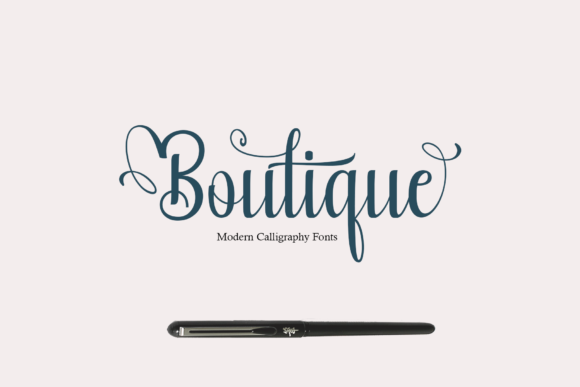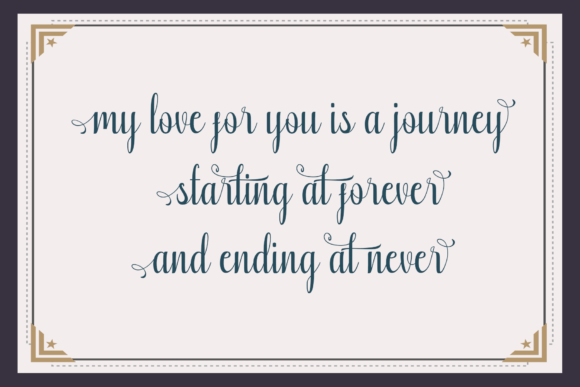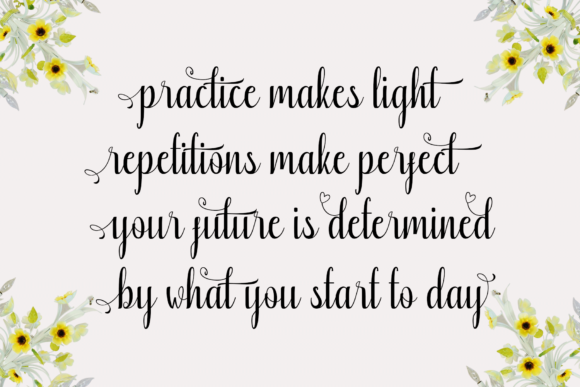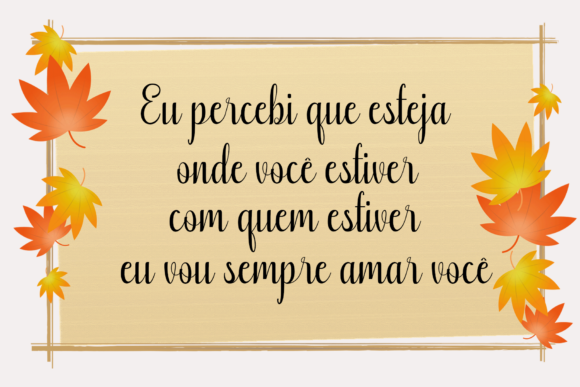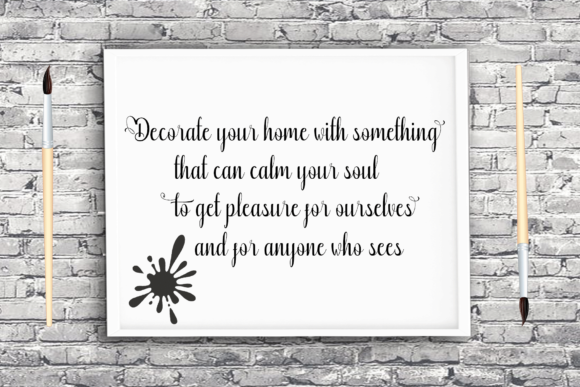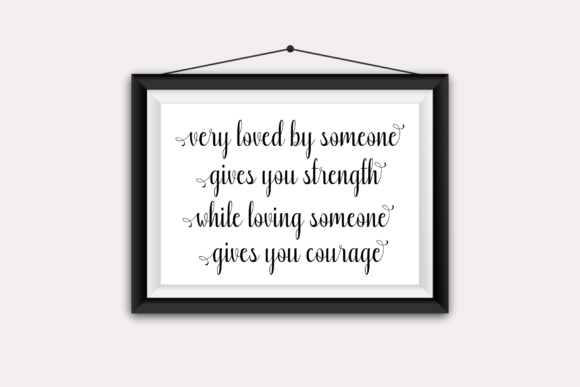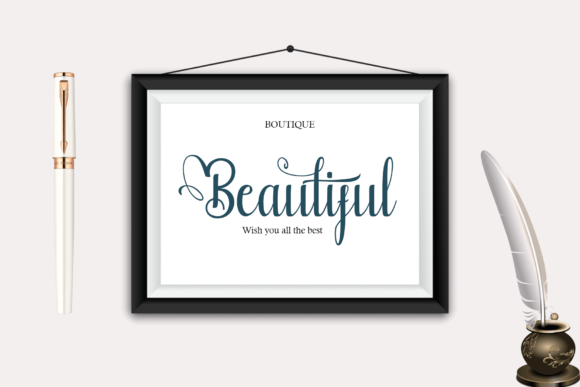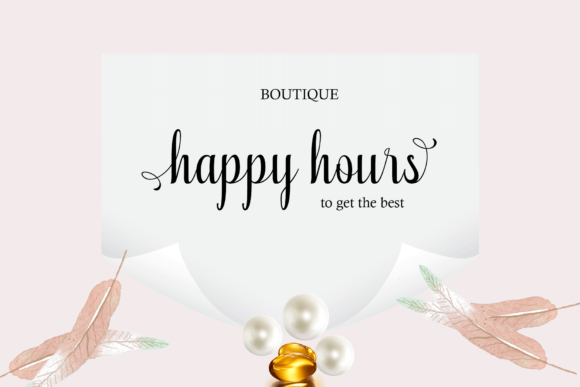
Boutique Font
About Boutique Font
The Boutique is a handwritten font with natural characteristics. It had an elegant and feminine style which makes it perfect for invitations, signatures, blogs, social media, business cards, product brands, and every other design that needs to look upscale and chic.